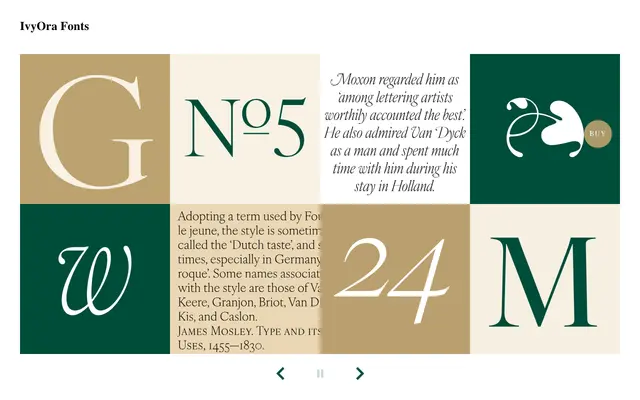
IvyOra
A Dutch Old Face revival drawn from 17th-century specimens held at the Museum Plantin-Moretus, tracing letterforms attributed to Nicolaes Briot and Christoffel van Dijck.
Jan Maack of Ivy Foundry worked from a 1695 folio sheet, Proef van Letteren, printed by the widow of Dirck Voskens, to reconstruct the letterforms that also informed William Caslon's Great Primer Roman. The family splits into Display and Text optical sizes, each running five weights from Thin to Bold with matching italics, plus two variable fonts covering both weight and optical size axes. A thorough OpenType feature set includes small capitals, old-style figures, discretionary ligatures and fractions.
Explicitly described as a Dutch Old Face serif, revived from 17th-century historical specimens attributed to Nicolaes Briot and Christoffel van Dijck; sits between old style and transitional in character.